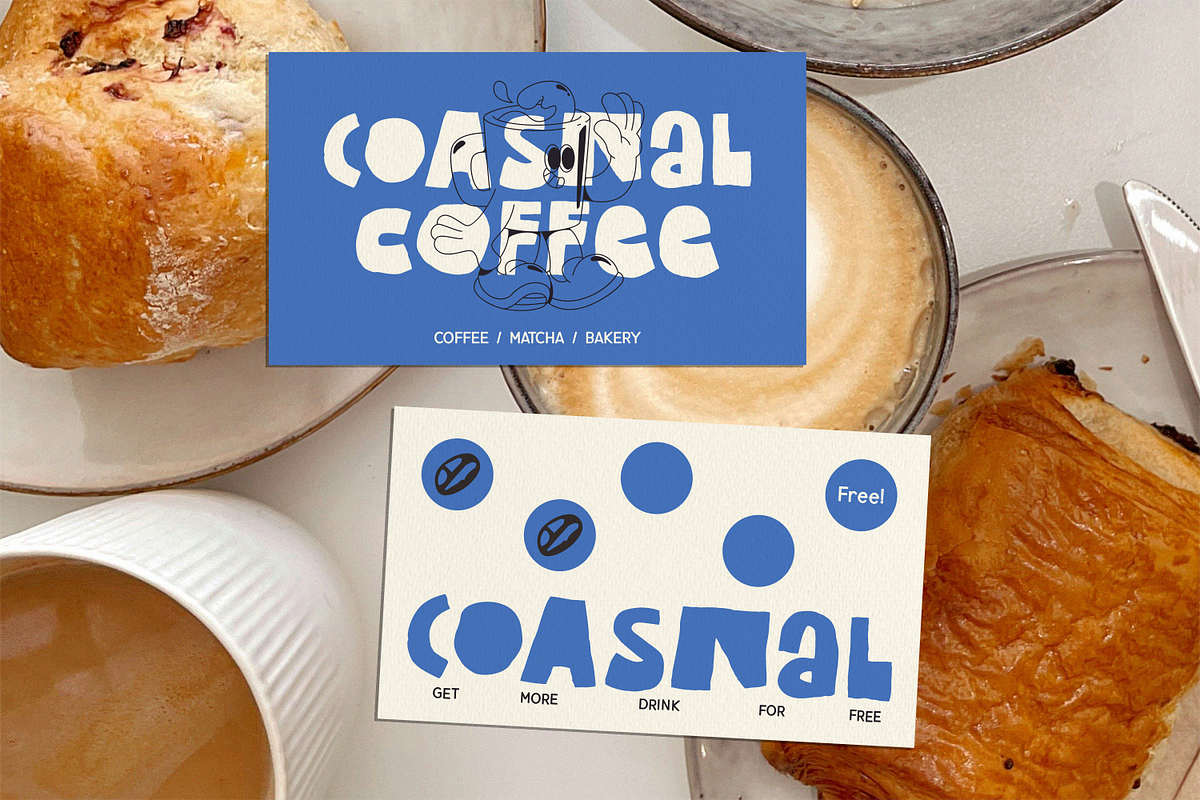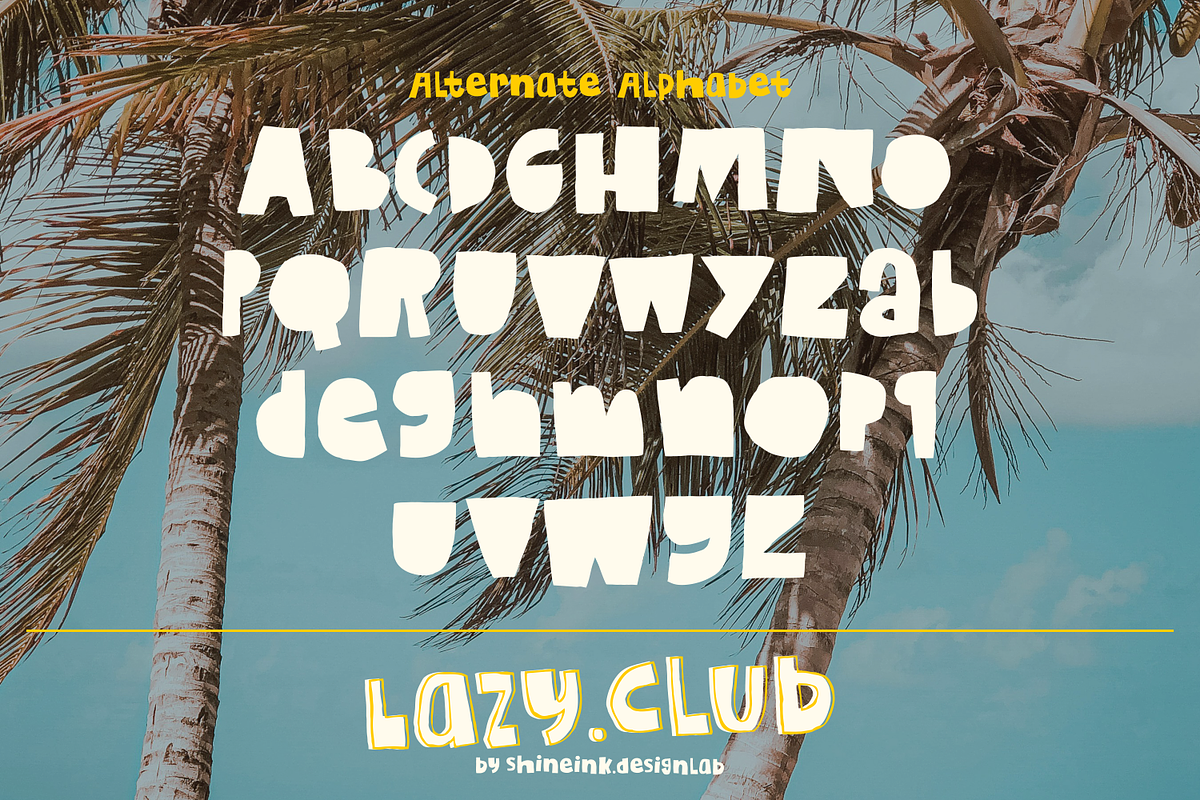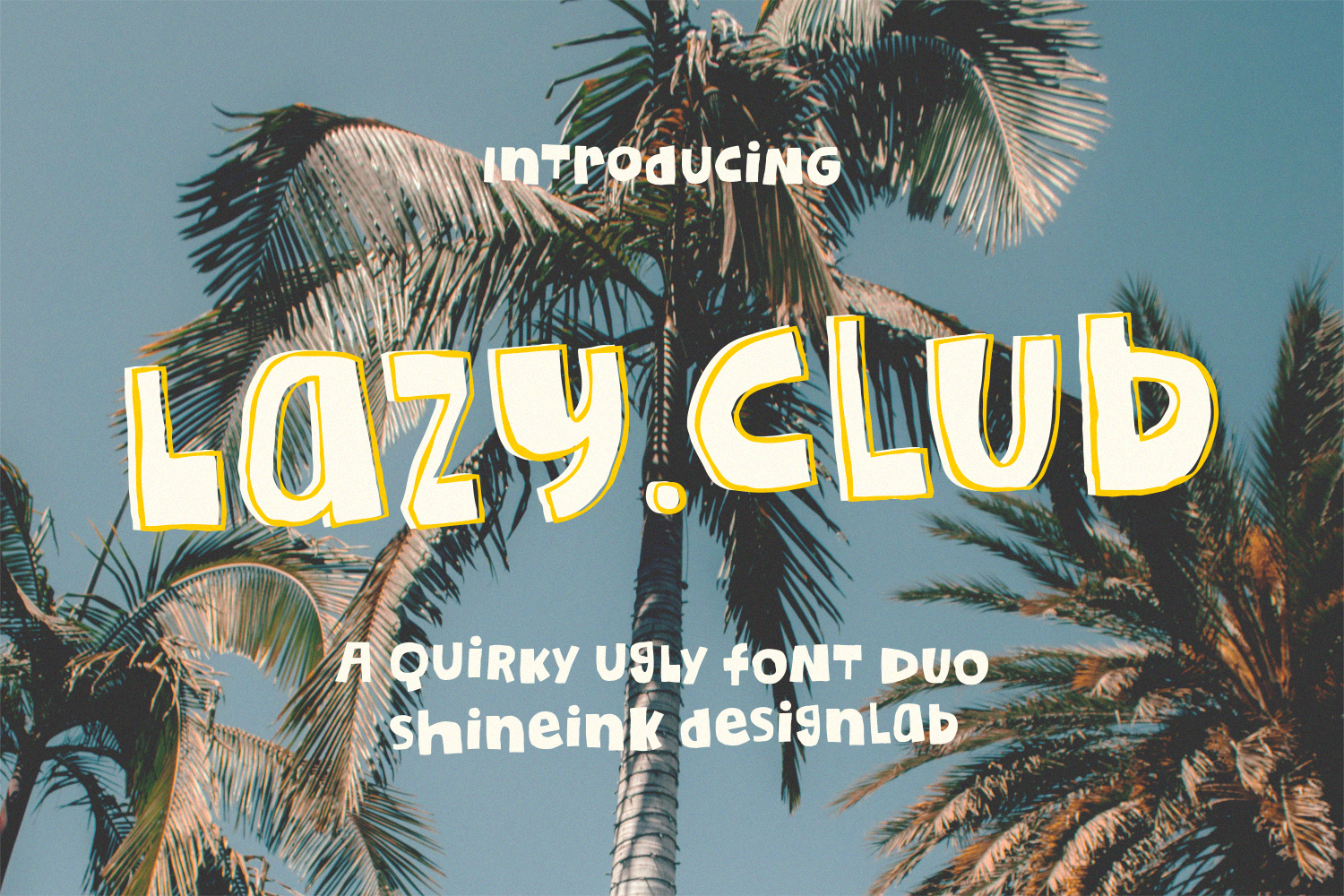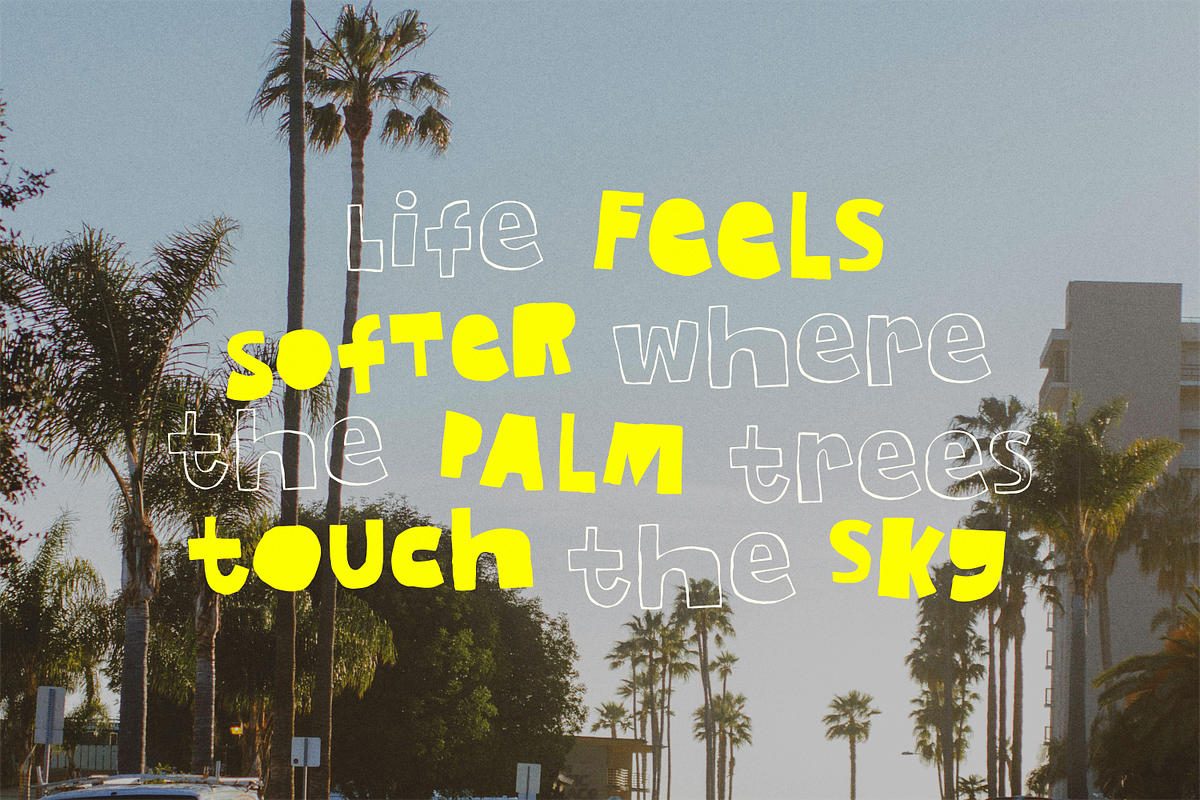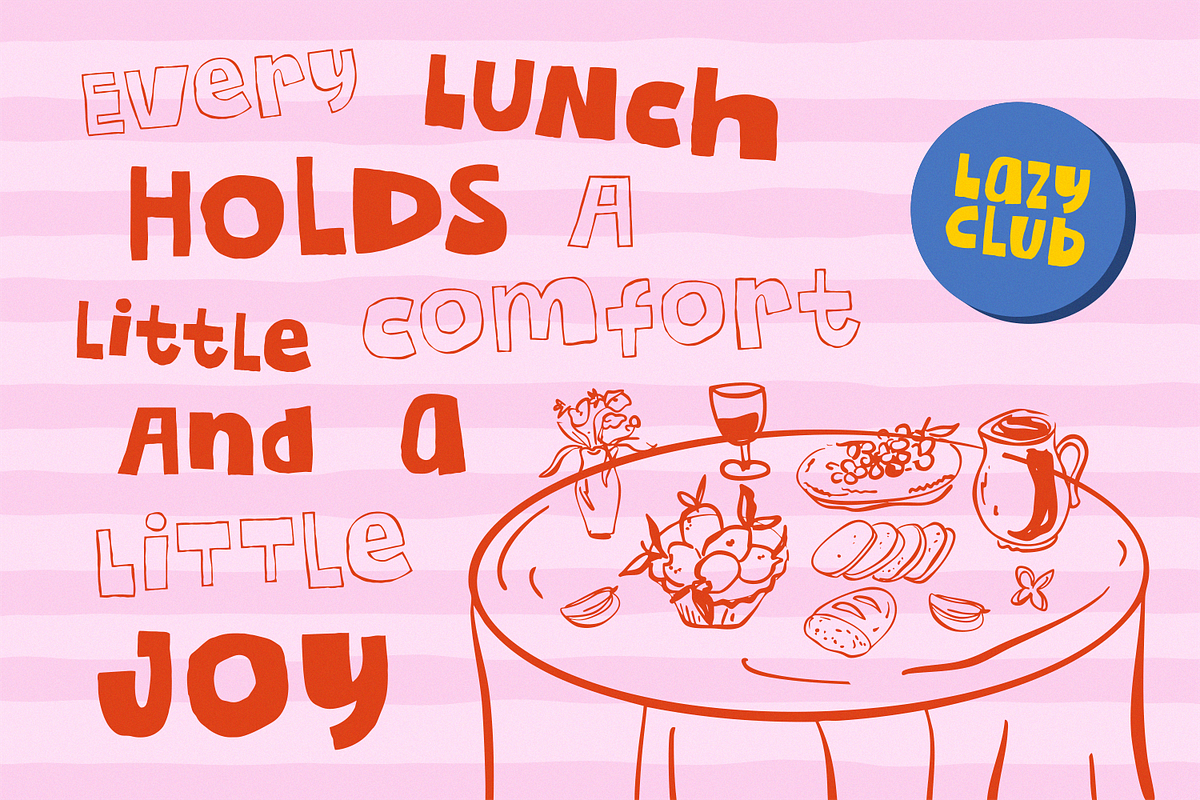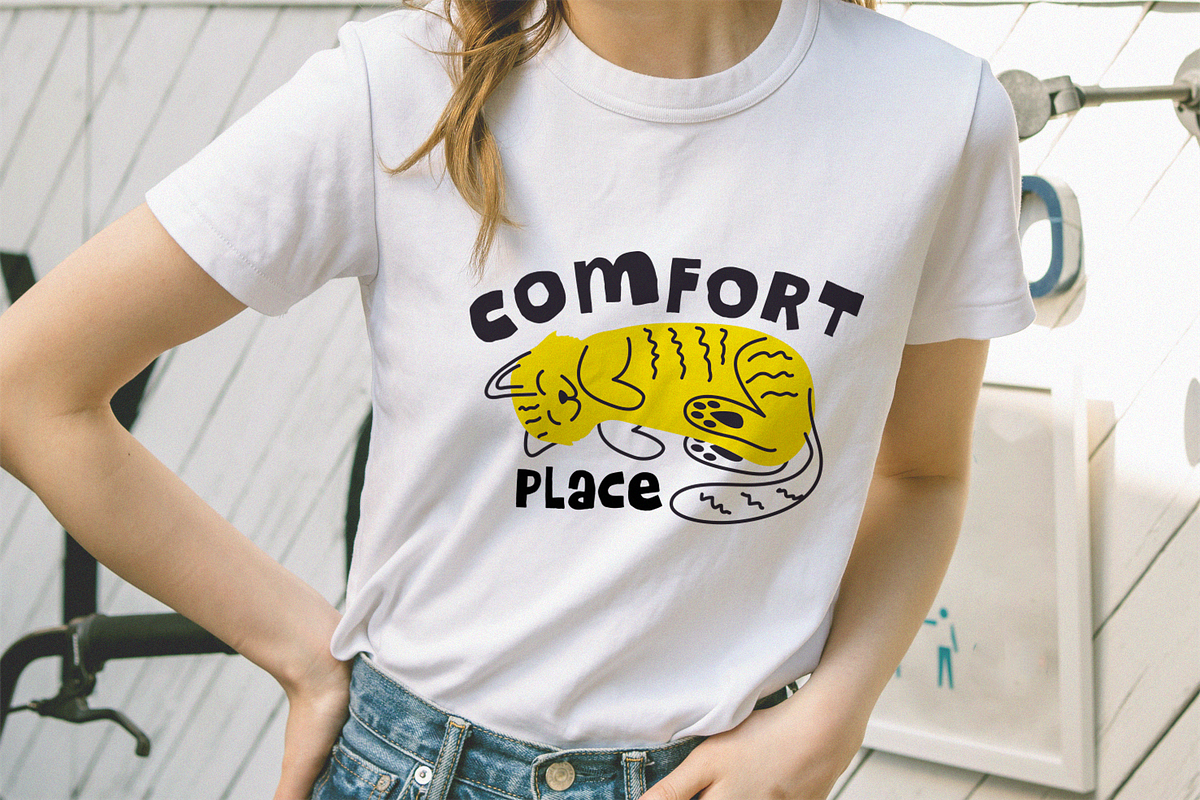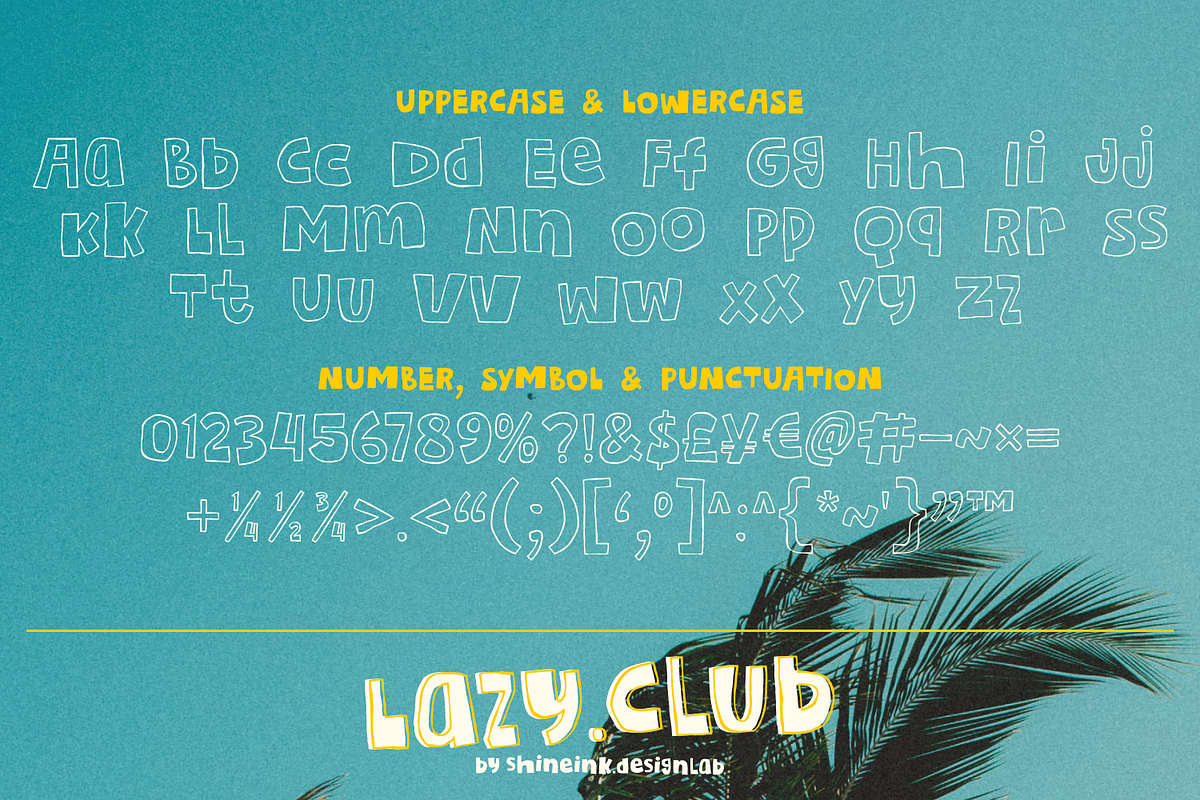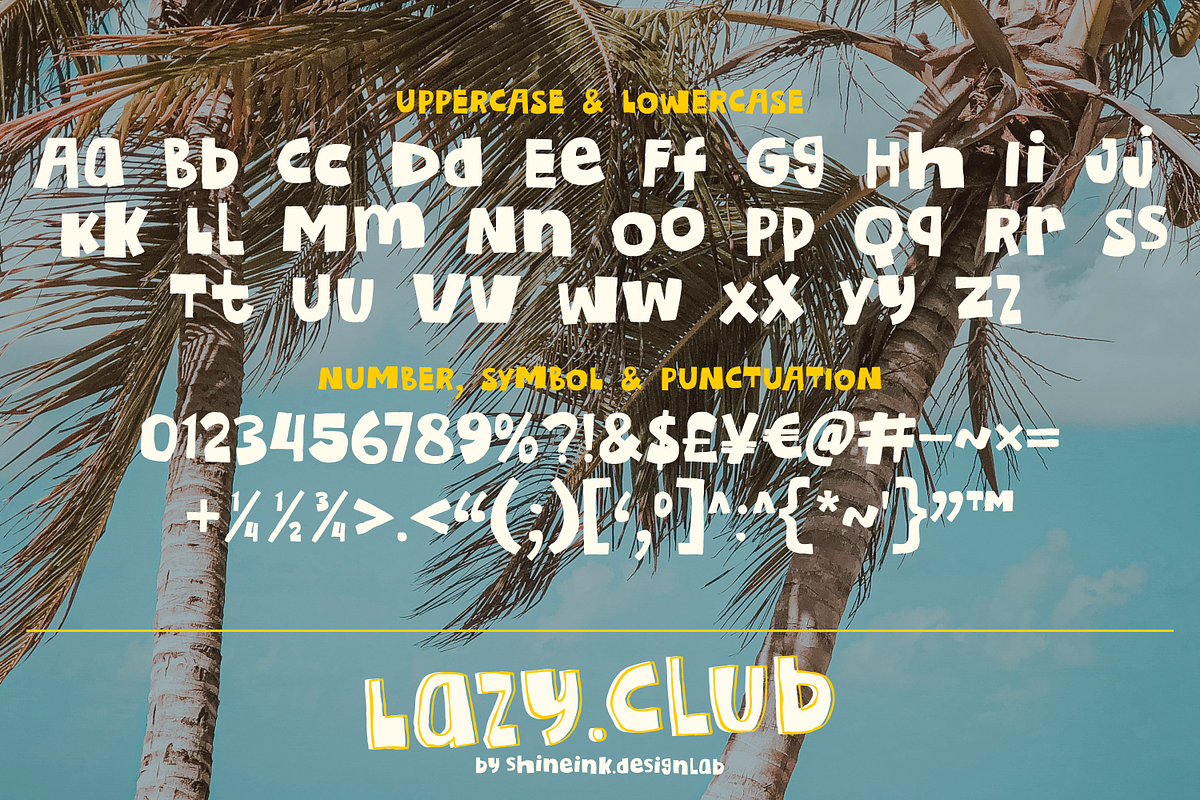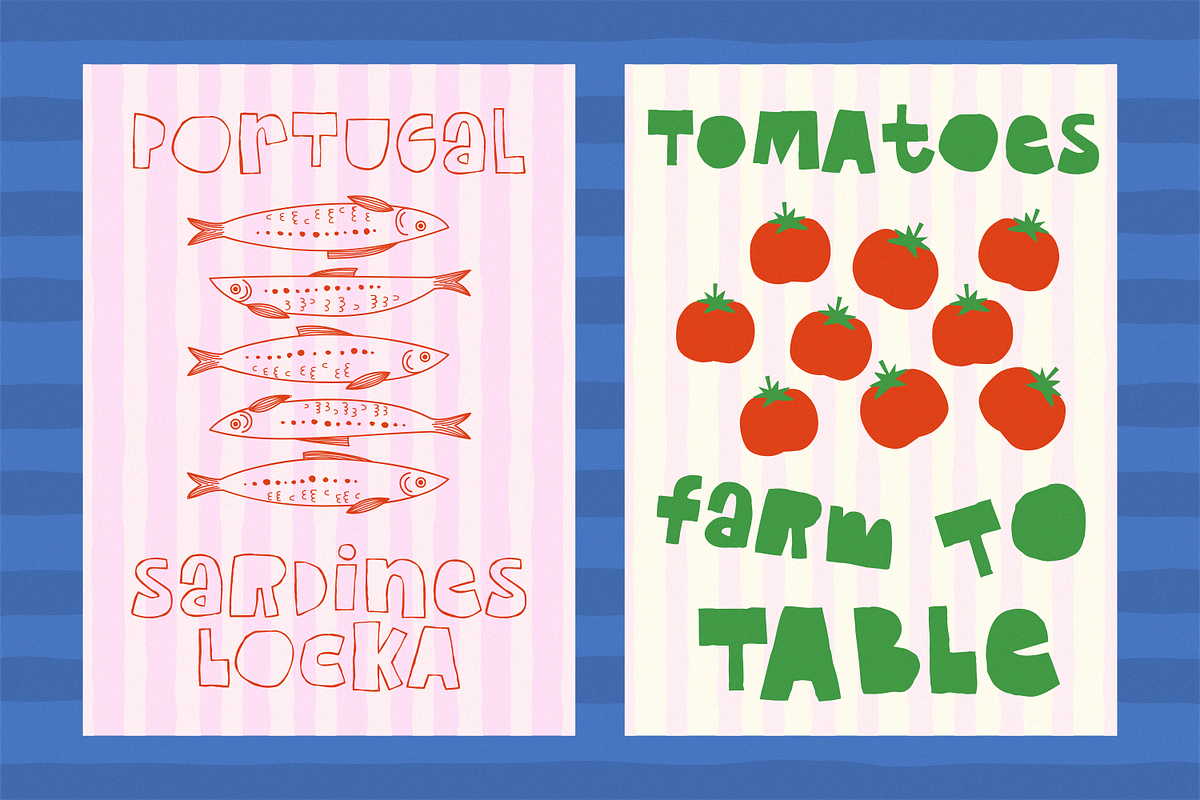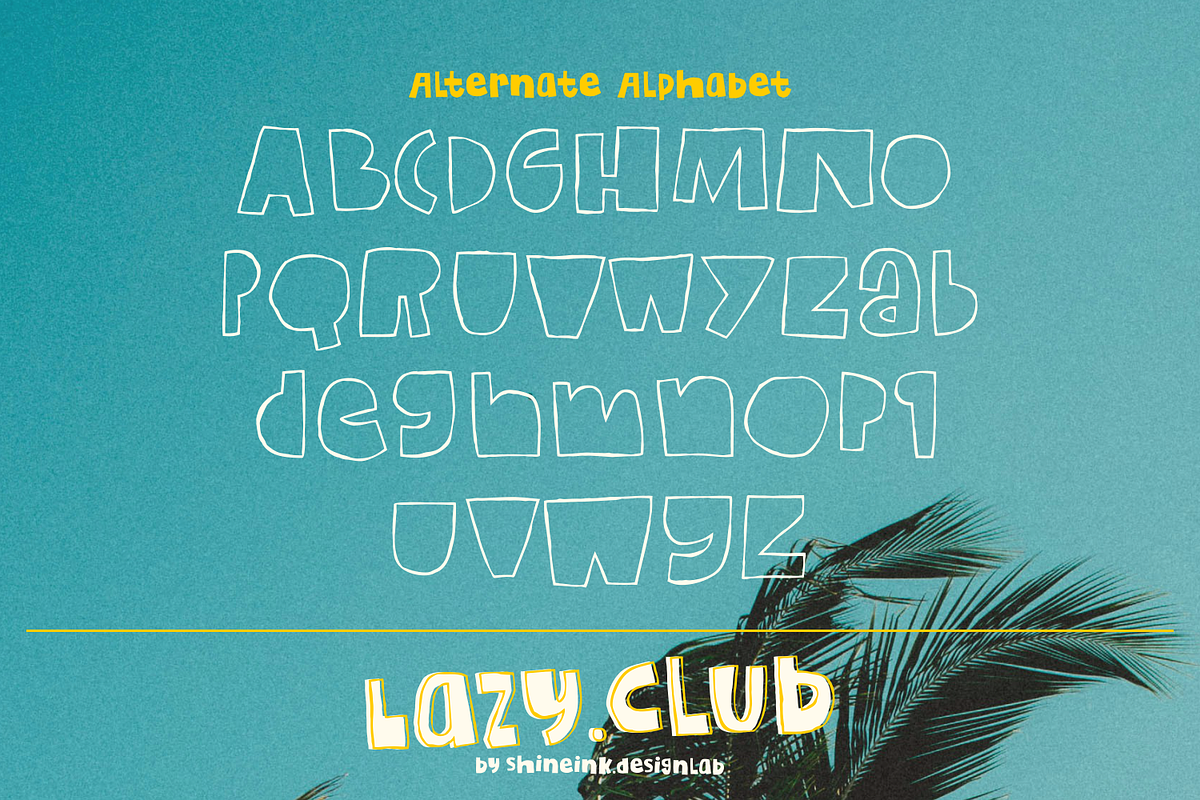
Lazy Club – Quirky Font Duo
I'm present to you, a quirky and playful font duo, called Lazy Club!
Lazy Club, a quirky and playful font duo designed to add bold personality and charming imperfections to your creative projects. With its fun, slightly irregular shapes and expressive letterforms, Lazy Club brings a relaxed, carefree vibe that instantly makes your designs feel more lively and unique.
This font comes in two complementary styles: Regular and Outline, allowing you to mix and match effortlessly to create eye-catching typography. Use the Regular style for bold and friendly headlines, and pair it with the Outline version to add depth, layering effects, or playful visual contrast.
Lazy Club embraces the beauty of imperfection, making it perfect for designs that want to feel fun, expressive, and full of character. Whether you're creating something playful, retro-inspired, or creatively bold, this font duo will help your typography stand out.
- Lowercase and Uppercase
- 2 Style Font : REGULAR, OUTLINE
- Alternate Alphabet Uppercase & Lowercase